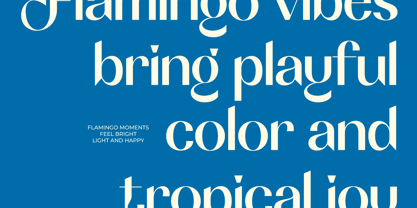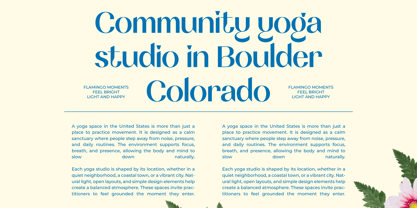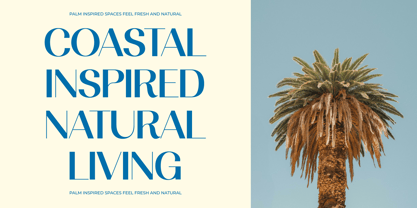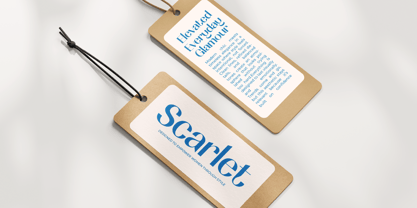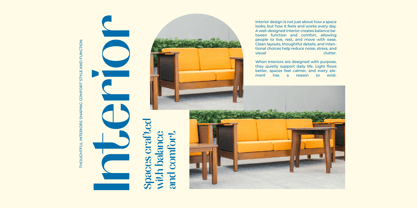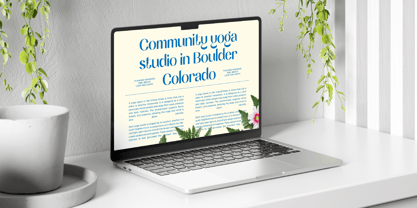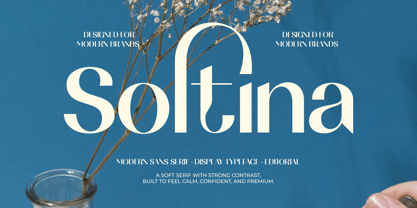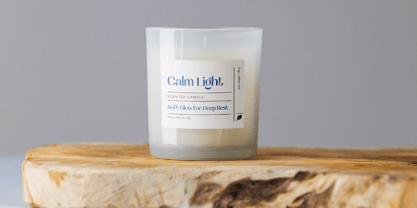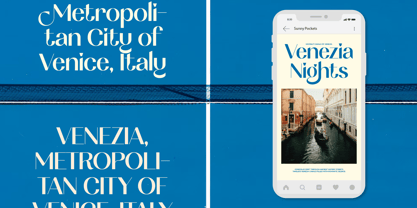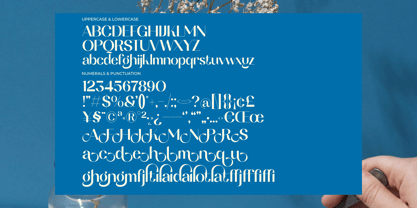
Soltina
Soltina – Modern Sans Serif & Display Typeface
Elevate your visual identity with calm, confident, and premium typography.
Soltina is a modern display sans serif with high-contrast, soft serif-inspired nuances designed to give contemporary brands a sophisticated, effortless edge. Combining clean geometric lines with refined, organic swoops and unique ligatures, Soltina strikes the perfect balance between high-end editorial elegance and playful, modern charm.
✦ Key Highlights & Features
• High-Contrast Elegance: Features bold, confident stems paired with delicate hairline stems and graceful curves for an instant high-fashion feel.
• Versatile Character Set: Complete set of Uppercase, Lowercase, Numerals, and Punctuation.
• Stylistic Alternates & Ligatures: Includes creative alternate glyphs and elegant ligatures that allow you to customize headlines, logotypes, and titles effortlessly.
• Calm & Premium Aesthetics: Engineered to feel grounded, polished, and intentional without over-trying.
✦ Perfect For Every Creative Application
Whether you are designing for print or digital, Soltina adapts seamlessly across a wide range of creative projects:
• Branding & Identity: Ideal for luxury packaging, apparel tags, and brand logos.
• Editorial & Magazines: Brings character and readability to large headlines, editorial layouts, and covers.
• Web & Mobile Apps: Adds distinction to UI design, header banners, and landing pages.
• Lifestyle & Coastal Aesthetics: Fits naturally into wellness, interior design, yoga studios, and relaxed coastal concepts.